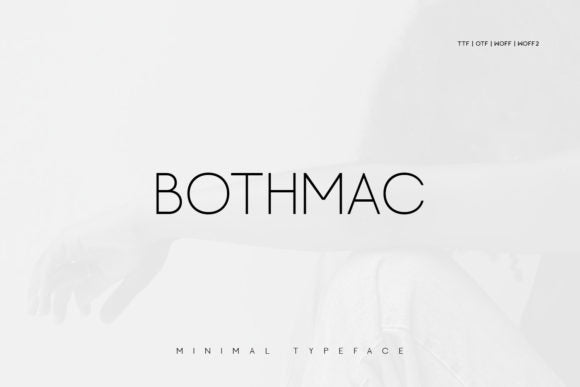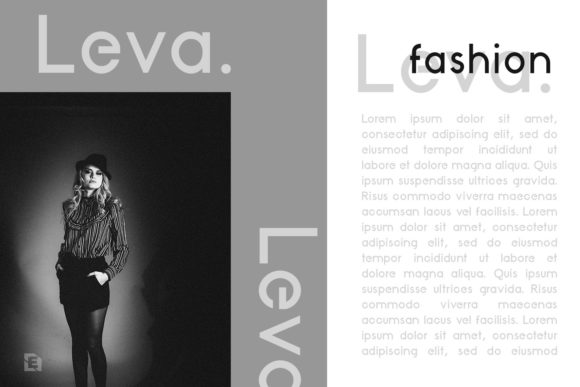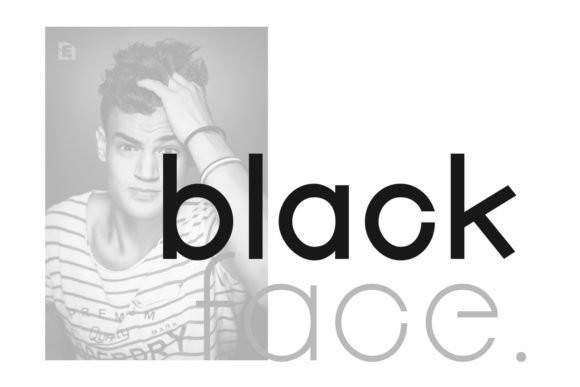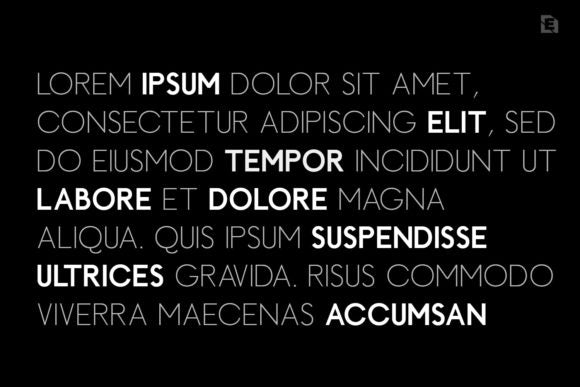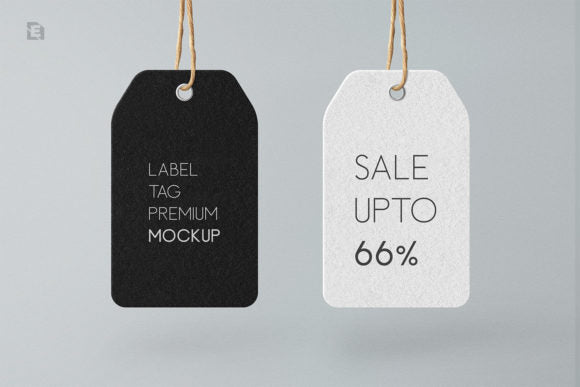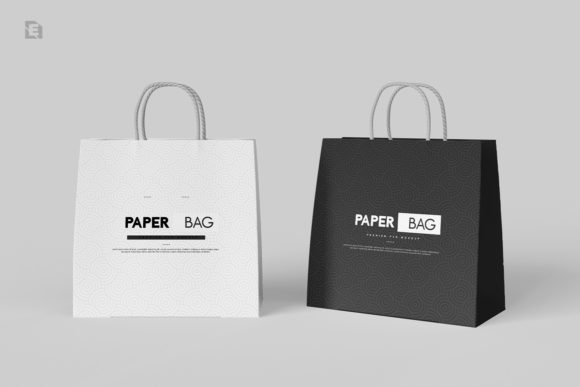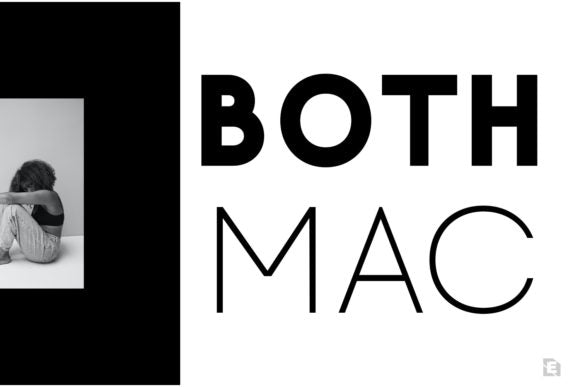
Bothmac Typeface
Bothmac is a sleek and contemporary minimalist typeface crafted for modern brands, fashion labels, editorial projects, and luxury packaging. Combining ultra-clean lines with elegant proportions, Bothmac delivers a sophisticated visual identity that feels both timeless and modern.
Designed with versatility in mind, this font performs beautifully across logos, headlines, magazines, product packaging, website designs, social media content, and promotional materials. Its refined letterforms create a premium aesthetic while maintaining excellent readability in both print and digital applications.
Whether you're building a fashion brand, designing luxury packaging, creating editorial layouts, or developing a modern visual identity, Bothmac offers the perfect balance of simplicity, elegance, and professionalism.
Features
- Modern minimalist sans-serif typeface
- Clean and elegant letterforms
- Fashion-forward aesthetic
- Excellent readability
- Ideal for branding and packaging
- Suitable for print and digital media
- Professional and versatile design
Perfect For
- Fashion Branding
- Luxury Packaging
- Logo Design
- Editorial & Magazine Layouts
- Website Headers
- Social Media Graphics
- Product Labels & Tags
- Advertising Campaigns